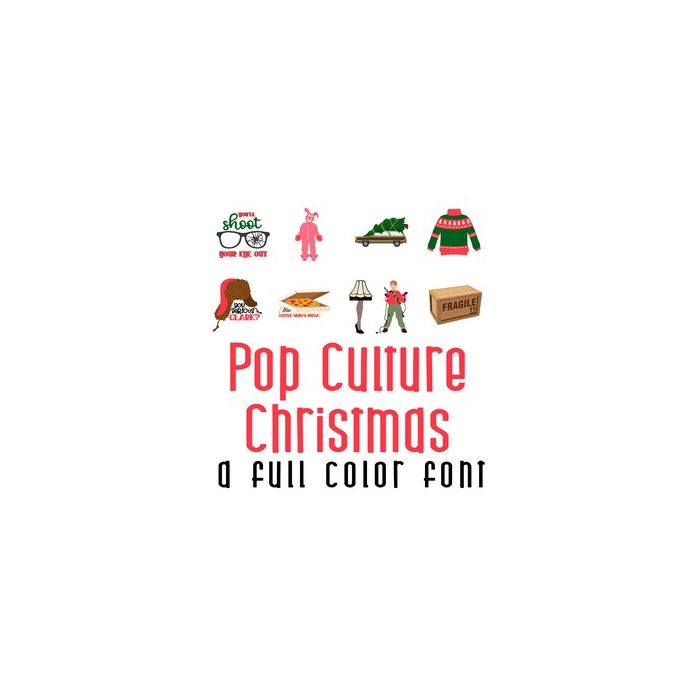
This adorable full-color doodlebat font features 28 Pop Culture Christmas images, perfect for cards, crafts, gifts, decor, planner stickers, scrapbook pages, parties and more! Glyphs are A-Z and 0,1.